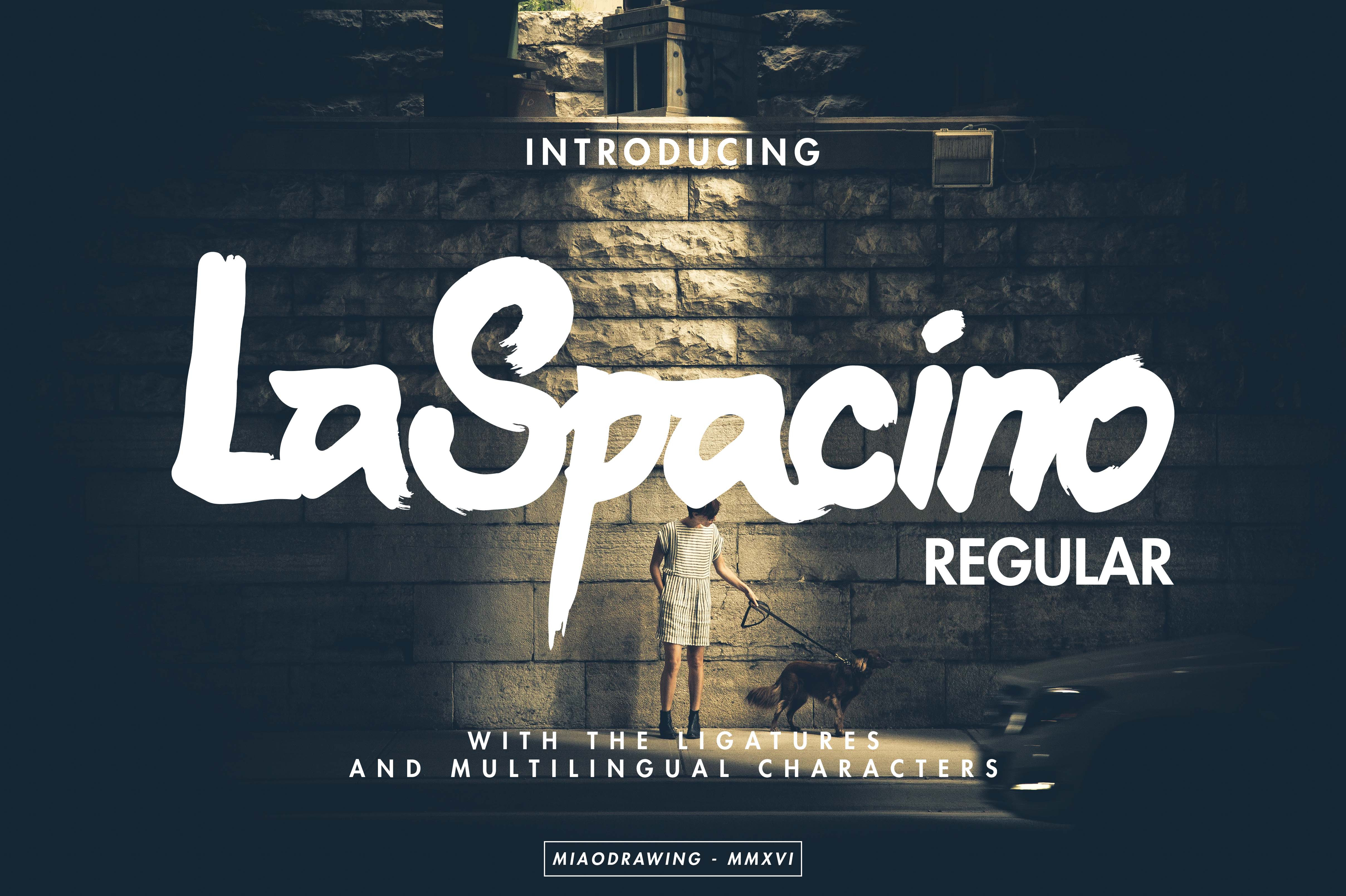
LaSpacino Typeface
LaSpacino Typeface is handmade brush and marker handlettering. Combining strong, rough, bold,and brushy typography with many features inside. Suitable for posters, shirt, or any design requirements.
LaSpacino Features
Opentype Features